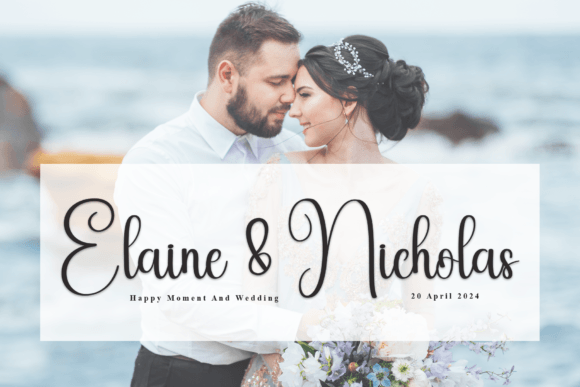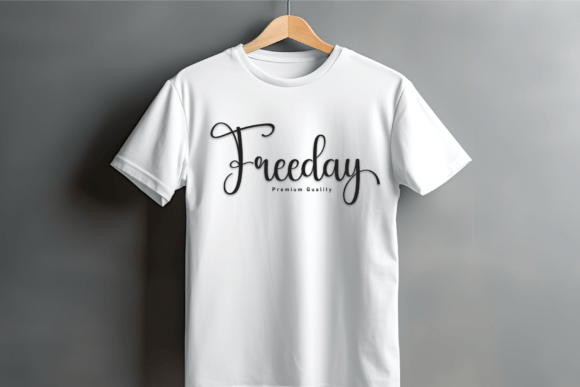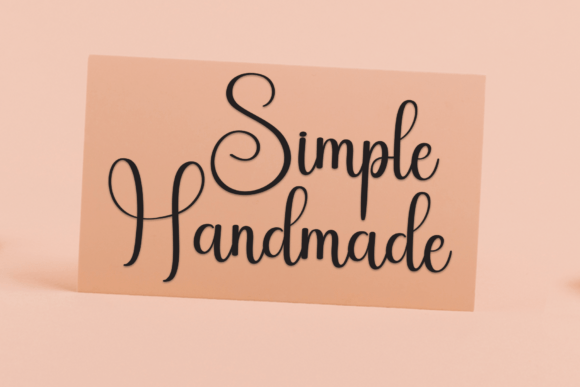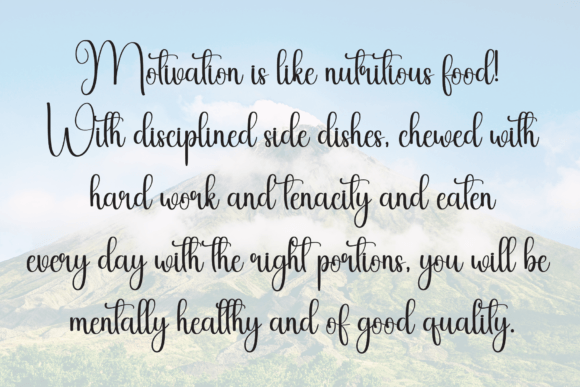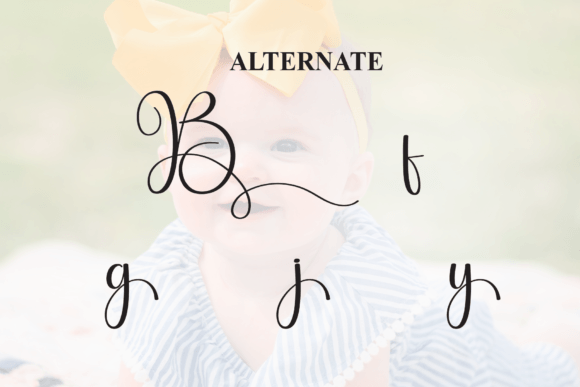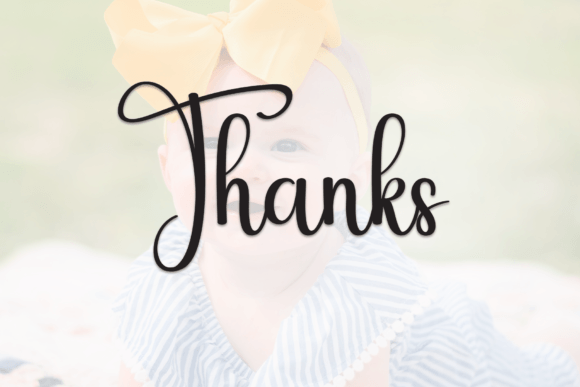
Baby Beautiful Font: The Sweetest Handwritten Font for Your Designs
Are you looking for a font that exudes sweetness and delicacy? Do you want to add a romantic and personalized touch to your designs? Look no further than the Baby Beautiful Font! This stunning handwritten font is perfect for creating beautiful wedding invitations, cards, and other designs that require a touch of elegance and charm.
What is Baby Beautiful Font?
Baby Beautiful Font is a sweet and delicate handwritten font that is sure to capture your heart. Its dainty and joyful appearance makes it an ideal choice for designers and crafters who want to create beautiful and romantic designs. The font’s elegant and cursive style is reminiscent of traditional handwritten scripts, but with a modern twist that makes it perfect for contemporary designs.
Features of Baby Beautiful Font
- Sweet and delicate appearance: Baby Beautiful Font has a unique and charming appearance that is sure to make your designs stand out.
- Handwritten style: The font’s handwritten style gives it a personal and romantic touch that is perfect for wedding invitations, cards, and other special designs.
- Dainty and joyful: The font’s dainty and joyful appearance makes it perfect for creating beautiful and uplifting designs.
- Romantic and personalized touch: Baby Beautiful Font is ideal for designers and crafters who want to add a romantic and personalized touch to their designs.
Uses of Baby Beautiful Font
Baby Beautiful Font is a versatile font that can be used for a variety of design projects. Here are some of the most popular uses of this beautiful font:
- Wedding invitations: The font’s romantic and elegant style makes it perfect for creating beautiful wedding invitations that will set the tone for the big day.
- Cards and stationery: Baby Beautiful Font is ideal for creating beautiful cards and stationery that require a personal and romantic touch.
- Designs that require a feminine touch: The font’s delicate and dainty appearance makes it perfect for designs that require a feminine touch, such as fashion designs, beauty blogs, and more.
Why Choose Baby Beautiful Font?
There are many reasons why you should choose Baby Beautiful Font for your design projects. Here are a few:
- Unique and charming appearance: Baby Beautiful Font has a unique and charming appearance that will make your designs stand out from the crowd.
- Elegant and romantic style: The font’s elegant and romantic style makes it perfect for creating beautiful and sophisticated designs.
- Easy to read and use: Baby Beautiful Font is easy to read and use, making it perfect for designers and crafters of all skill levels.
Tips for Using Baby Beautiful Font
Here are a few tips for using Baby Beautiful Font in your design projects:
- Use it for headings and titles: Baby Beautiful Font is perfect for headings and titles, where its elegant and romantic style can really shine.
- Pair it with other fonts: The font pairs well with other fonts, such as sans-serif fonts, to create a beautiful and contrasting design.
- Experiment with different colors and textures: Baby Beautiful Font looks great in a variety of colors and textures, so don’t be afraid to experiment and find the perfect combination for your design.
In conclusion, Baby Beautiful Font is a sweet and delicate handwritten font that is perfect for designers and crafters who want to add a romantic and personalized touch to their designs. Its elegant and cursive style, combined with its dainty and joyful appearance, make it an ideal choice for creating beautiful wedding invitations, cards, and other designs. With its unique and charming appearance, easy-to-read style, and versatility, Baby Beautiful Font is a must-have font for any designer or crafter looking to create beautiful and sophisticated designs.